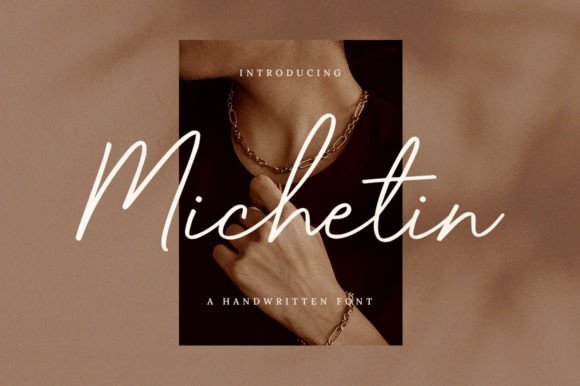
Indulge in the Elegance of Michetin: Your Key to Unlocking Creative Expression
In a world saturated with ordinary fonts, Michetin emerges as a beacon of individuality, inviting you to transcend the boundaries of conventional design. This enchanting script font, meticulously crafted by the visionary minds at Seagulls Creative, is a testament to the power of authenticity and the beauty of imperfections.
Discover the Allure of Michetin's Handwritten Charm
Michetin is not just a font; it's an experience that transports you to a realm of creativity and boundless imagination. Its graceful strokes, reminiscent of a skilled calligrapher's hand, evoke a sense of nostalgia and timeless charm. Whether you're a seasoned designer or just starting your design journey, Michetin's intuitive nature ensures a seamless and enjoyable experience.
Endless Possibilities Await with Michetin's Unparalleled Versatility
Step into a world of endless possibilities as Michetin effortlessly adapts to a myriad of design endeavors. From branding and labels to photography and invitations, from stationery and wedding designs to social media posts and advertisements, Michetin stands as your steadfast companion, turning your creative visions into captivating realities.
Enhance Your Designs with Michetin's Harmonious Synergy
Harness the power of collaboration and witness the magic unfold as Michetin harmoniously blends with various serif fonts. This dynamic partnership elevates your designs to new heights, adding depth and dimension that captivate and inspire. Unleash the full potential of your creativity and embark on a journey of typographic exploration.
Michetin: An Ode to Creativity, Authenticity, and Timeless Beauty
With Michetin as your creative ally, you're empowered to tell stories that resonate, to craft designs that leave a lasting impression, and to create a visual legacy that reflects your unique style and vision. Join the ranks of discerning designers who recognize the transformative power of Michetin, and elevate your work to the realm of the extraordinary.